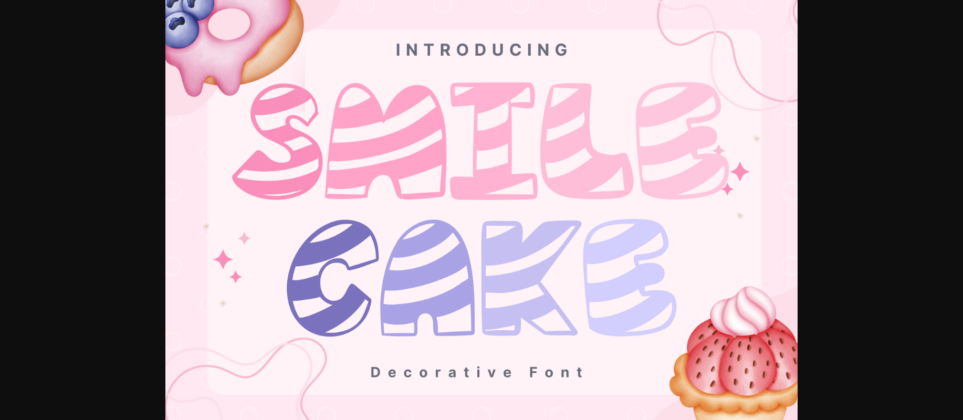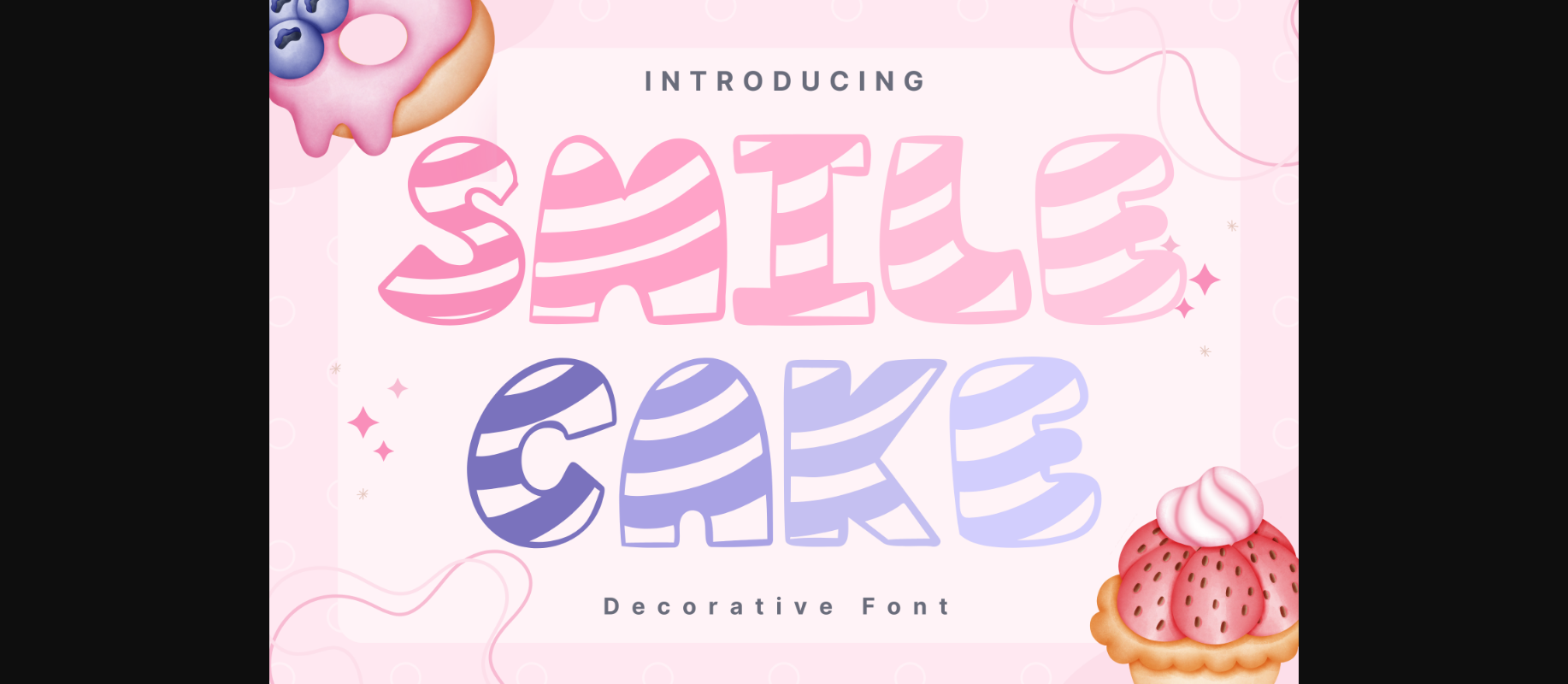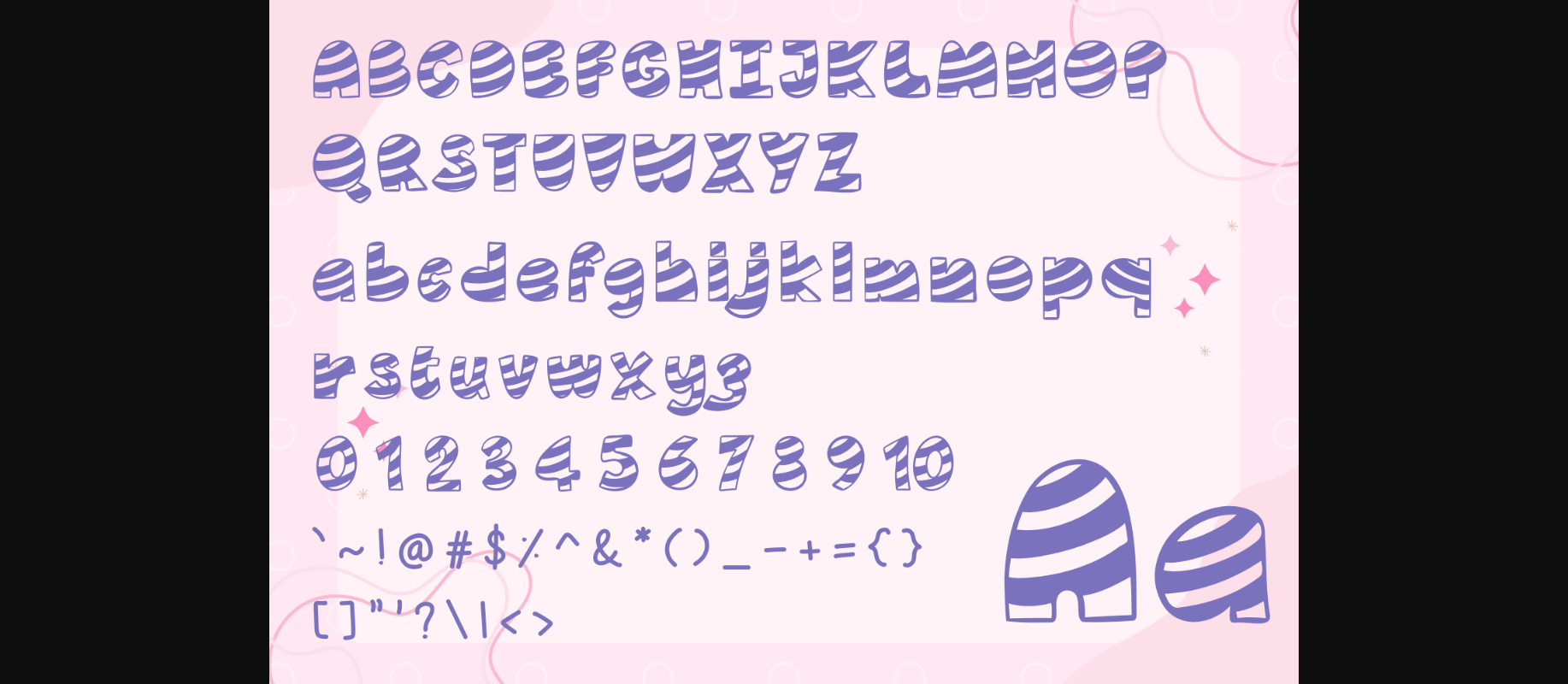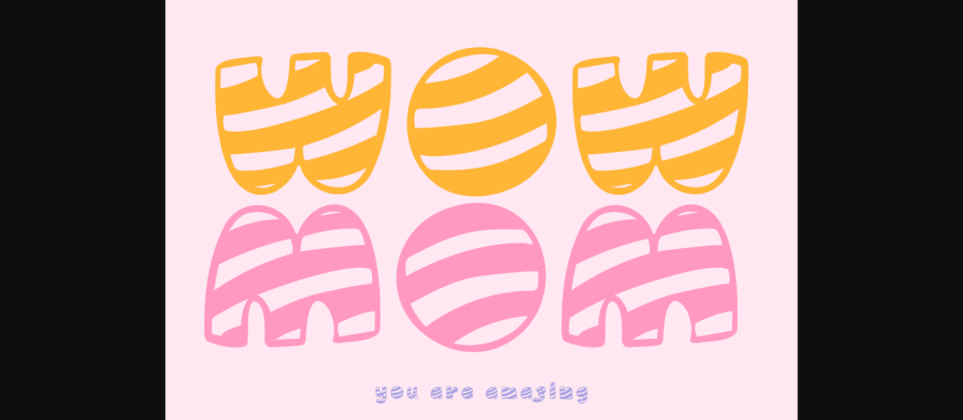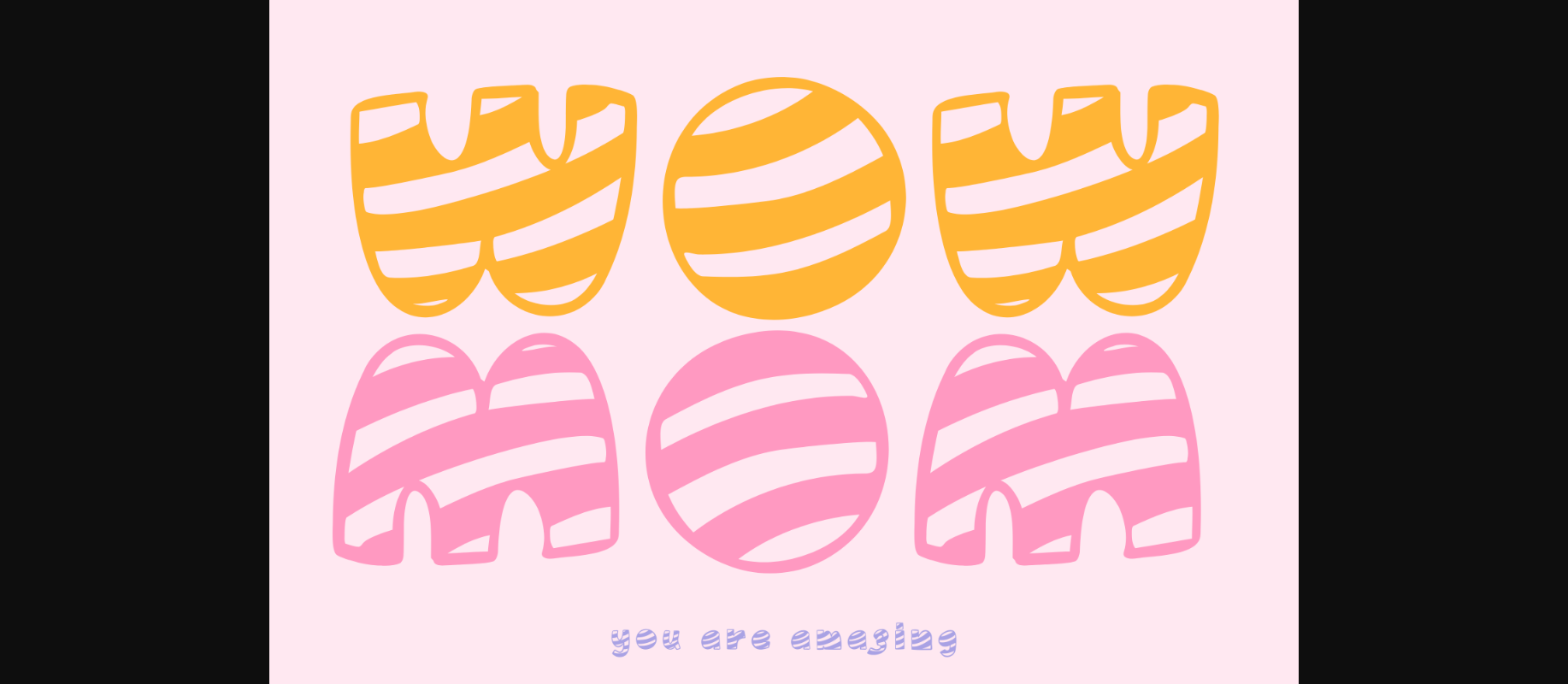
About Smile Cake Font
Smile Cake Style is a whimsical font. It can easily be matched to an incredibly large set of projects, so add it to your creative ideas and notice how it makes them stand out!